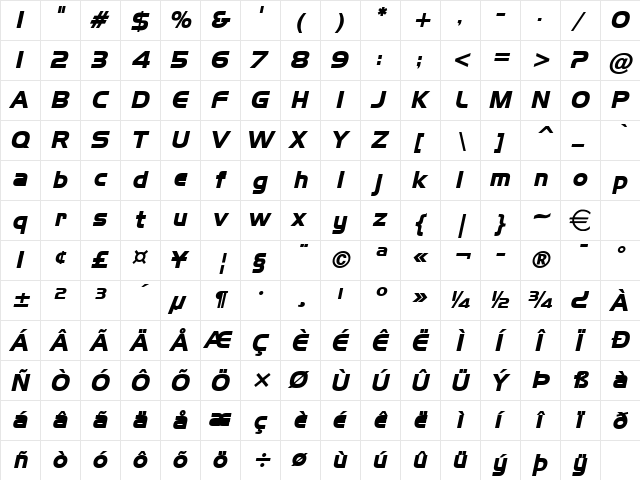
Hanzel BoldItalic
Design Context for Hanzel Typeface
Hanzel offers clean, dependable letterforms without strong stylistic allegiance, making it a practical choice for designers who need flexibility. Its italic angle brings a sense of urgency and motion to the letterforms. Its bold stroke weight gives it real presence on the page.
Pro Tip: Try Hanzel for annotation and caption copy alongside an upright companion — the contrast in angle creates a dynamic but ordered typographic system.